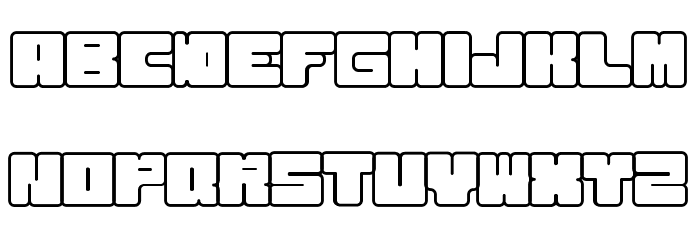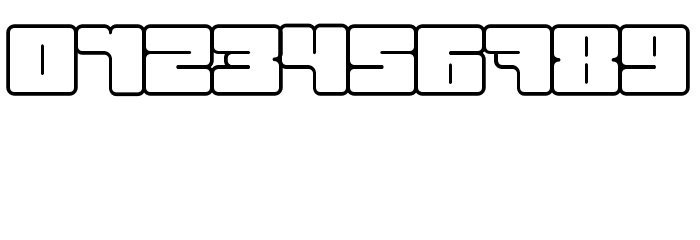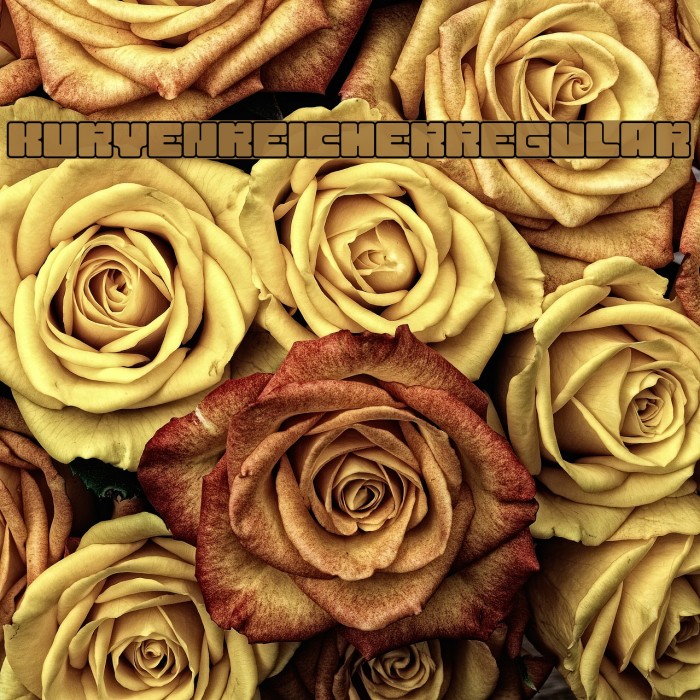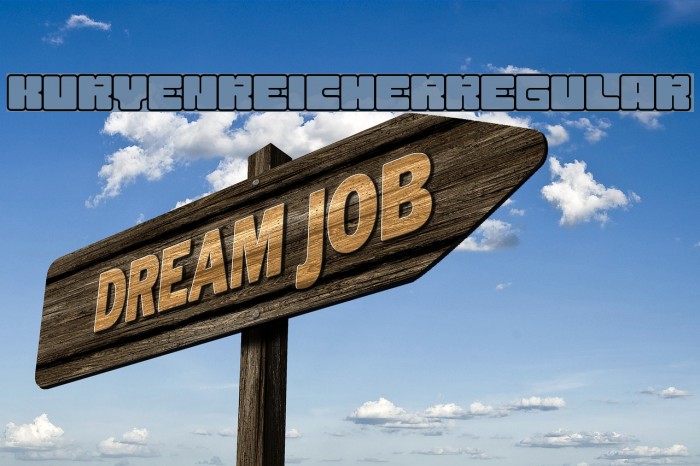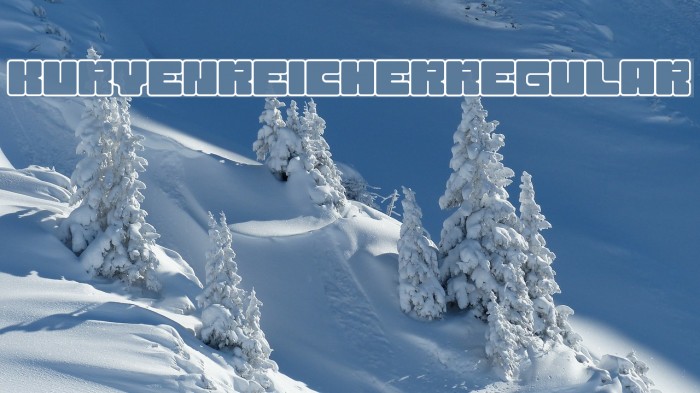
Kurvenreicher-Regular Font
This font features a bold, geometric design with rounded edges and a distinct outline. Each character is crafted with a uniform thickness, creating a cohesive and modern appearance. The uppercase and lowercase letters maintain a consistent style, with a playful yet structured form. The numbers and special characters are designed to match the overall aesthetic, making it versatile for various design needs. Its unique style makes it stand out, while still being legible and functional.
A bold, geometric font with rounded edges and a distinct outline.
- Proposed Projects: Ideal for logos, posters, and branding materials that require a modern and playful touch.